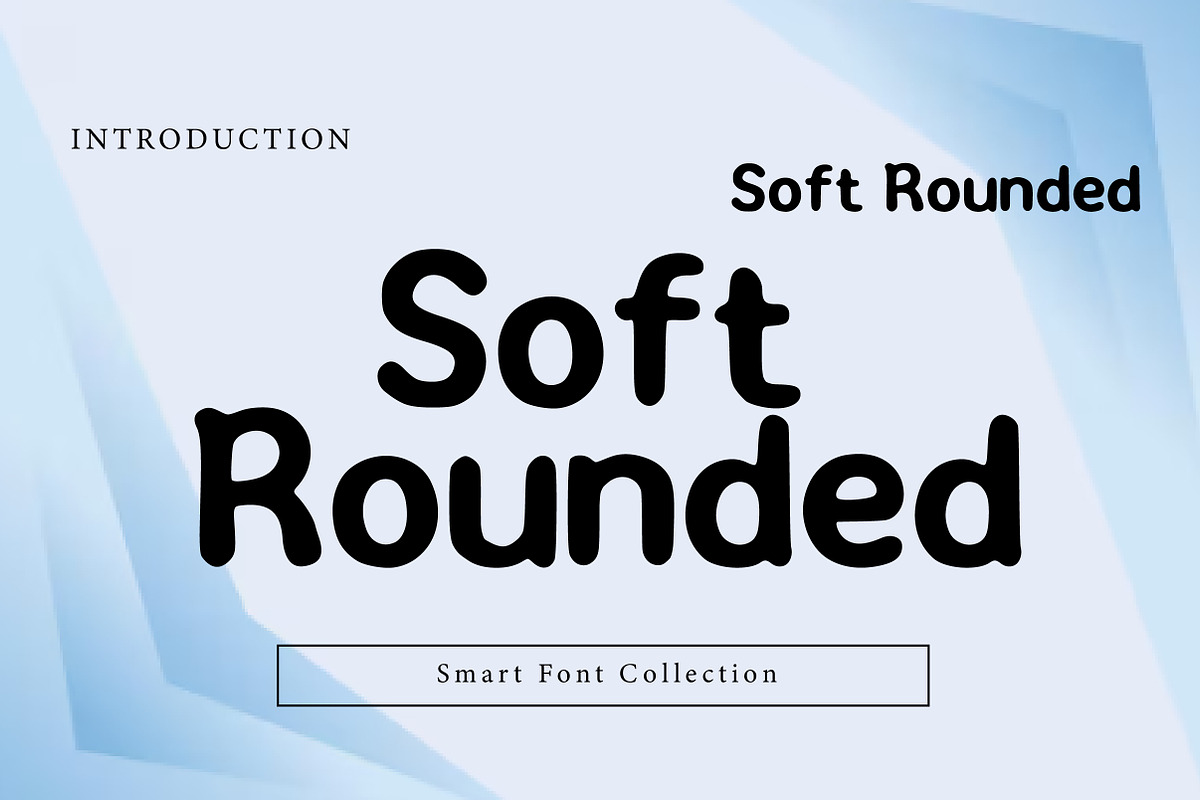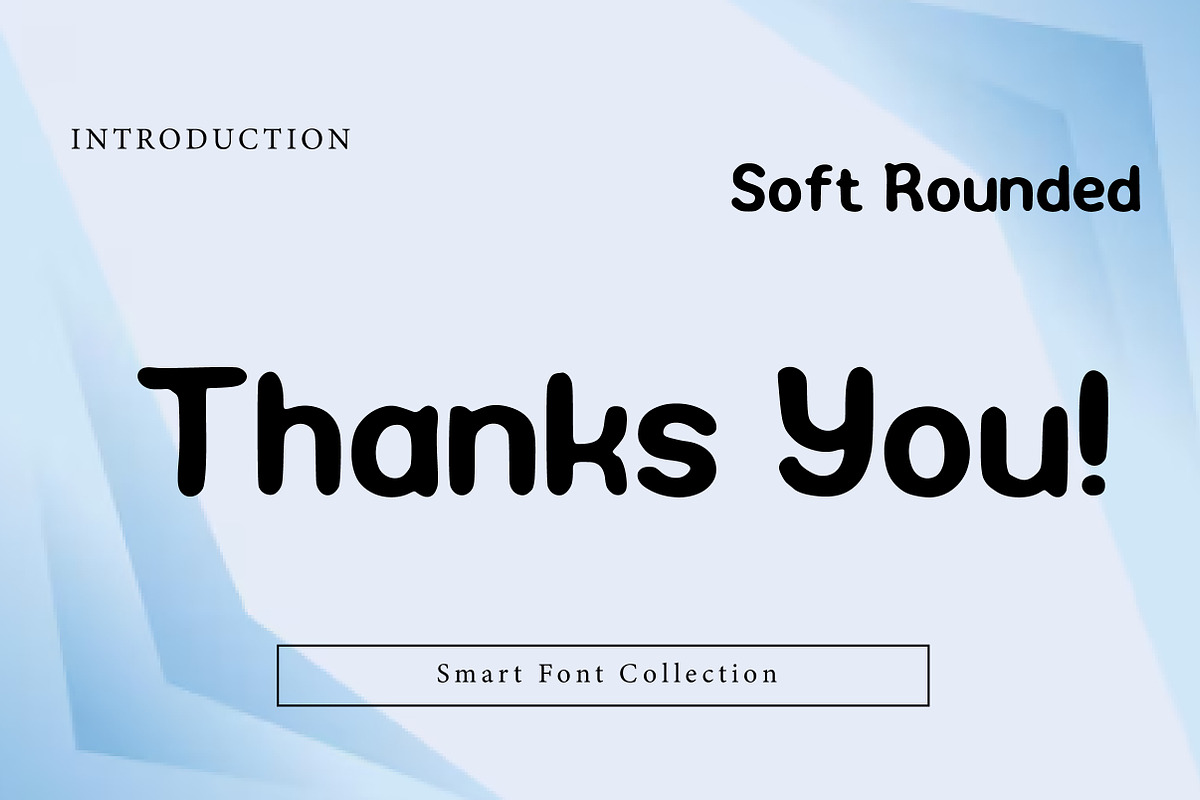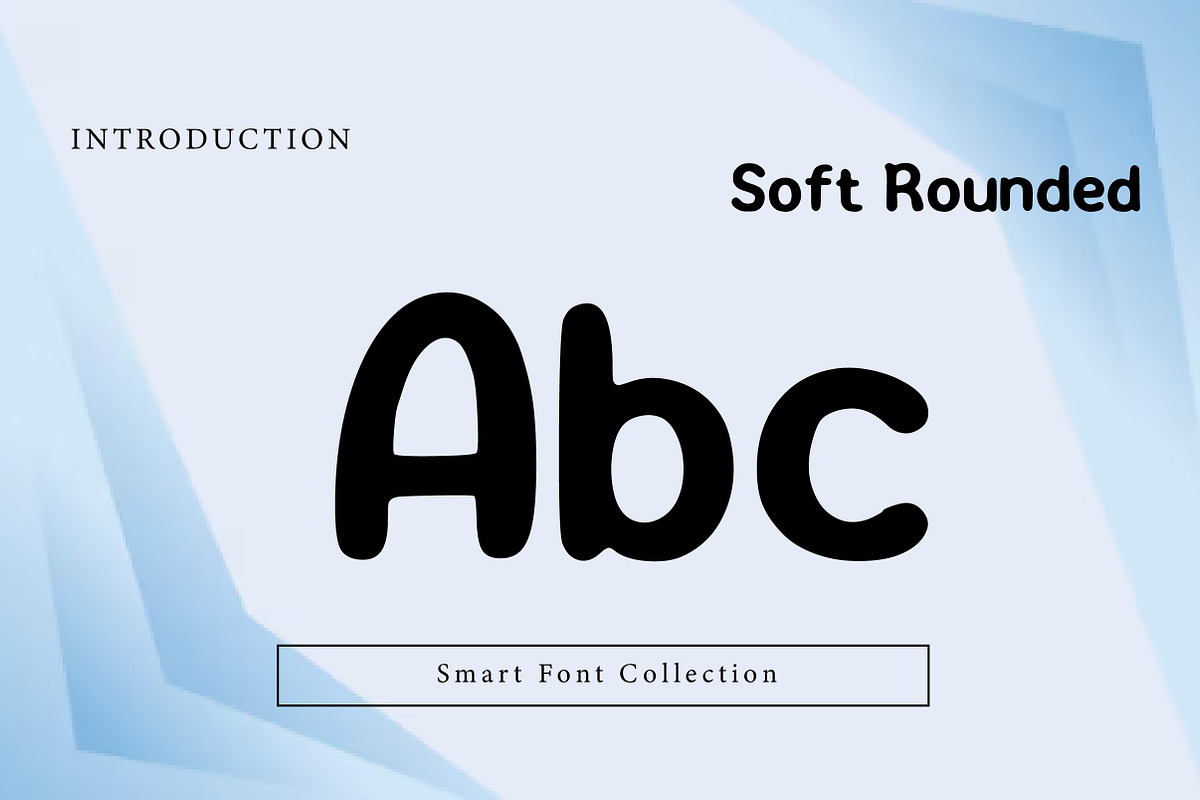
Soft Rounded
Soft Rounded is a cute, friendly rounded display font with smooth curves and a playful handmade feel. Its bold, bubbly shapes and easy readability make it perfect for children’s designs, logos, social media graphics, stickers, packaging, quotes, invitations, and fun branding. Whether you’re creating cheerful headlines or cozy product labels, Soft Rounded adds warmth, softness, and personality to any project.